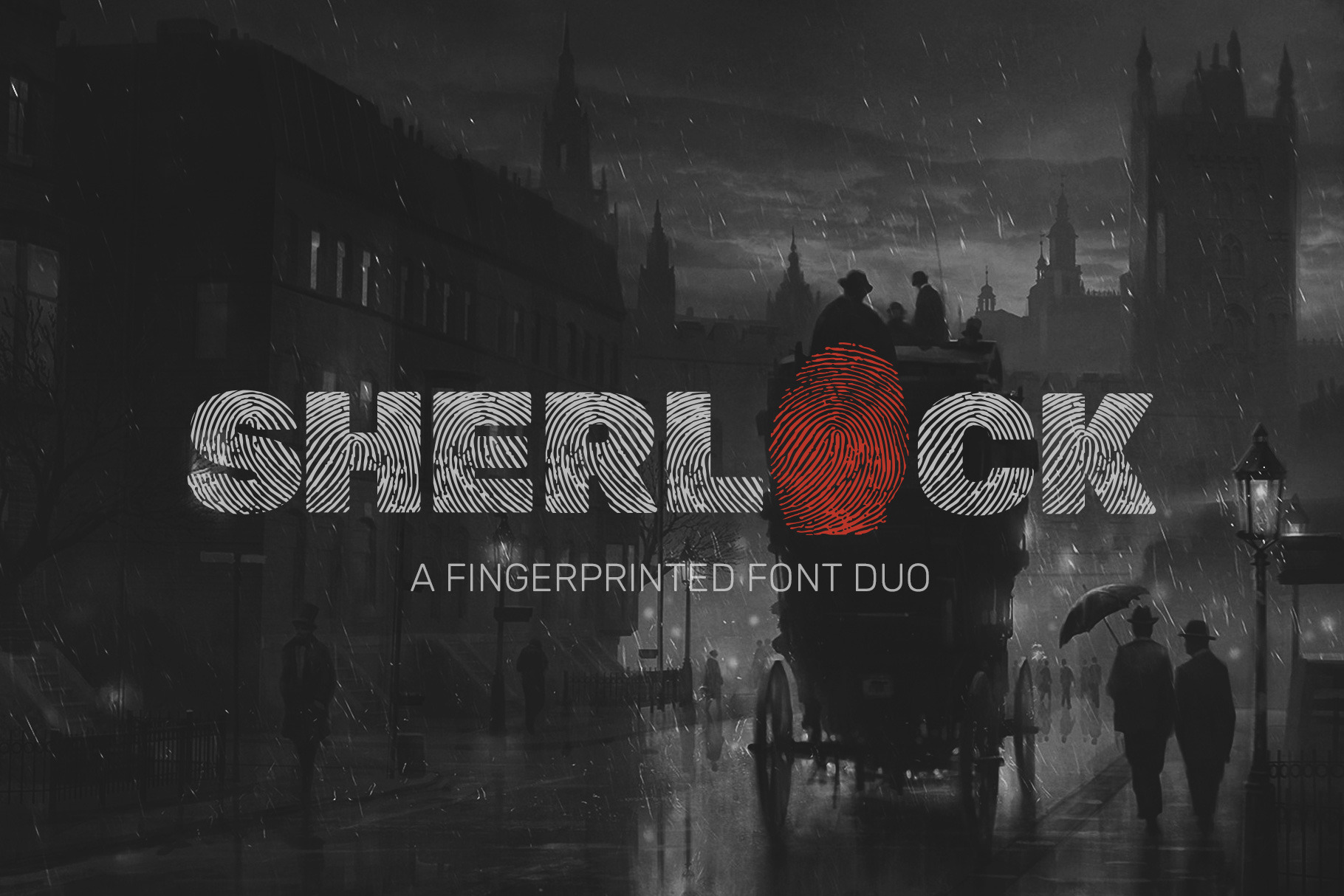
Sherlock Font Duo
Introducing Sherlock Font Duo a decorative display font. This font duo includes a decorative typeface, a sans serif type that perfectly pair. You can use this font to create monograms, branding, t-shirt designs and more.